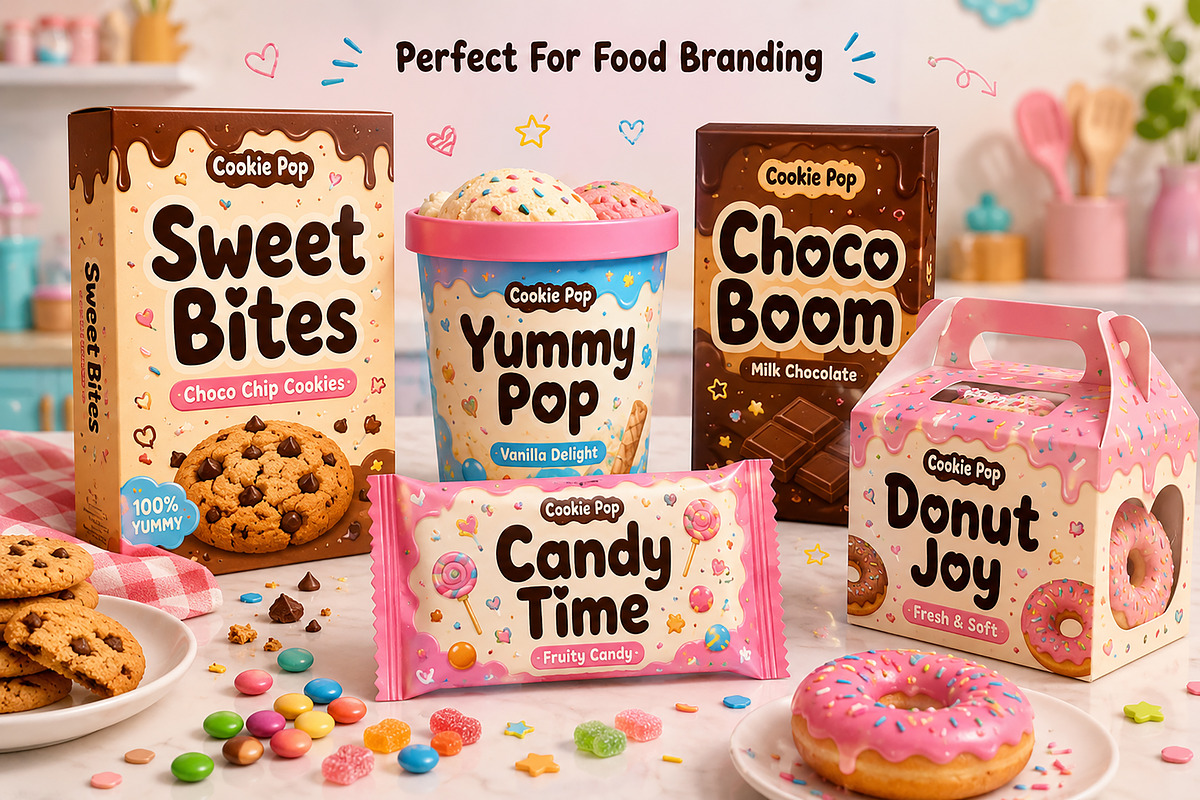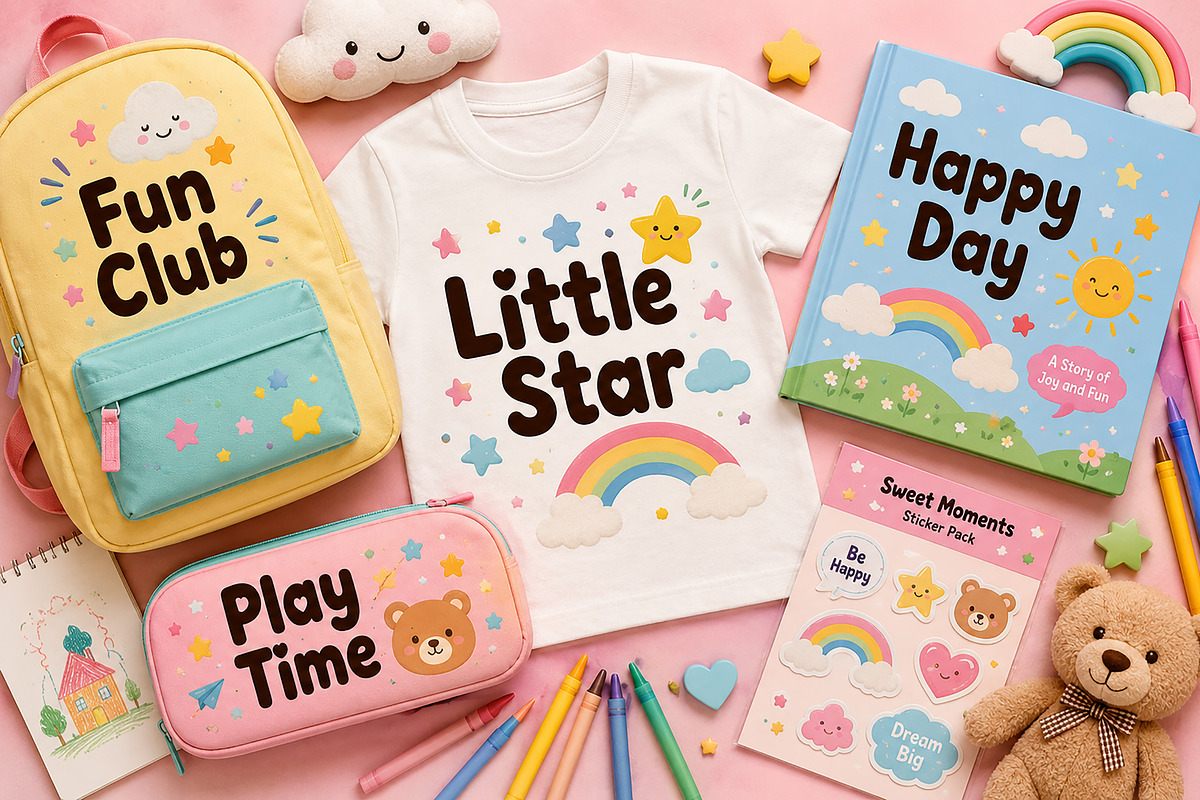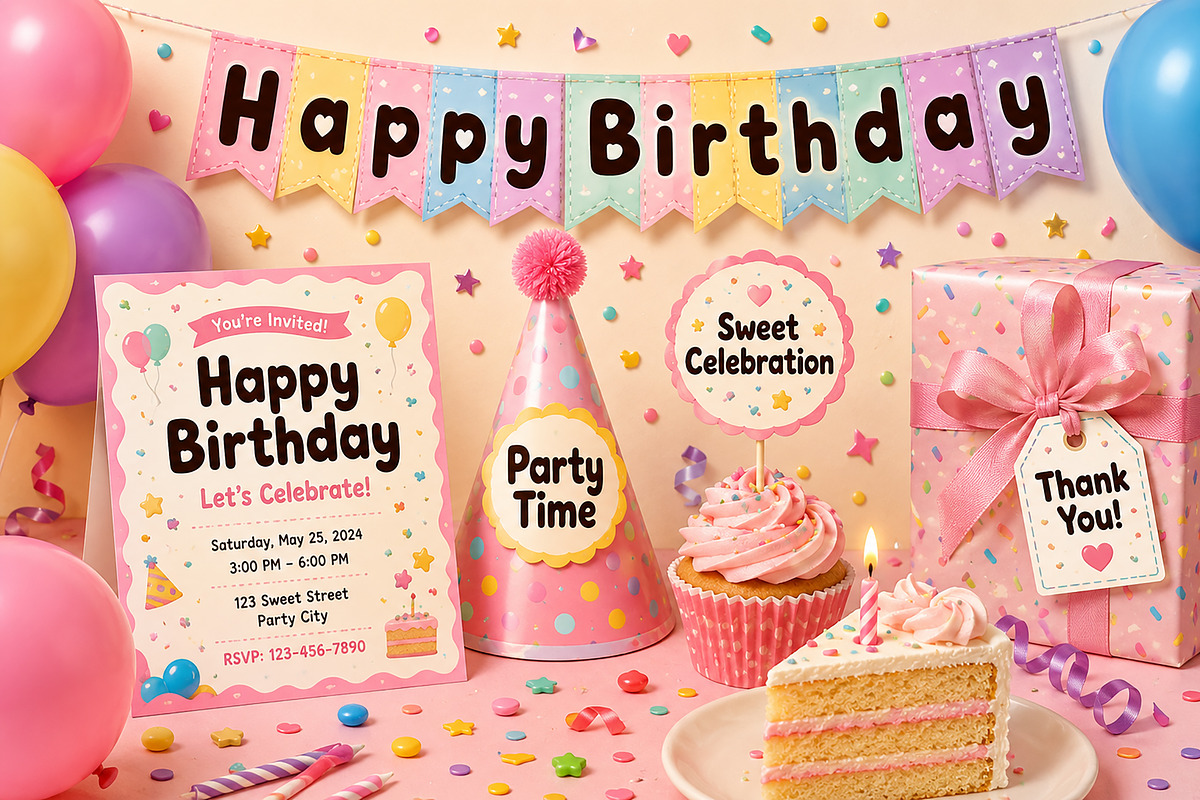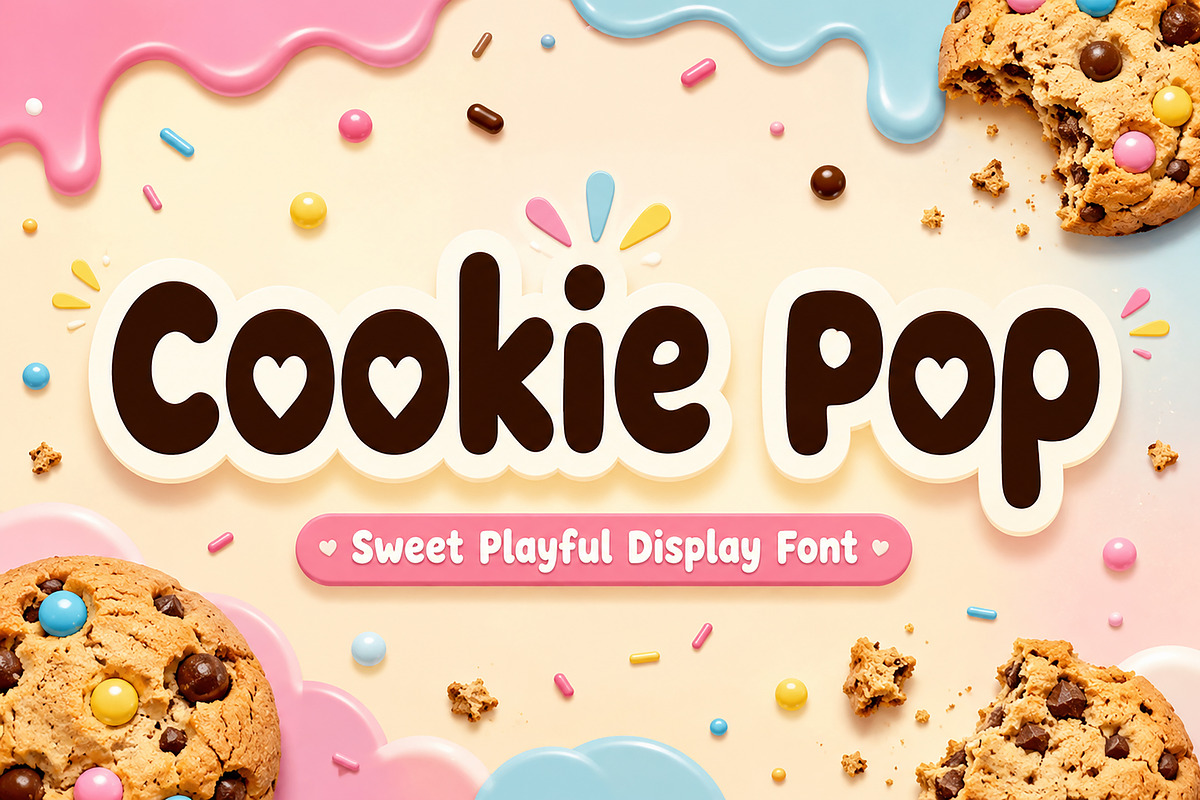
Cookie Pop
Sweet Playful Display Font
Cookie Pop is a fun, chunky, and cheerful display font designed to bring sweetness and joy into your creative projects. With its rounded bold shapes and adorable heart-cut details, this font instantly creates a playful, friendly, and candy-inspired vibe.
Perfect for kids branding, snack packaging, birthday invitations, party decorations, social media graphics, stickers, posters, book covers, and fun merchandise. Cookie Pop is made to stand out with its cute personality and bold readability, making it ideal for projects that need a happy and energetic touch.
Whether you're designing for candy brands, bakery packaging, playful logos, or children’s products, Cookie Pop adds a deliciously fun charm to every design.
• Kids Branding
• Food Packaging
• Candy Labels
• Birthday Invitations
• Party Decorations
• Stickers
• Posters
• Book Covers
• Social Media Posts
• Merchandise
• Printable Designs
• Fun Logos